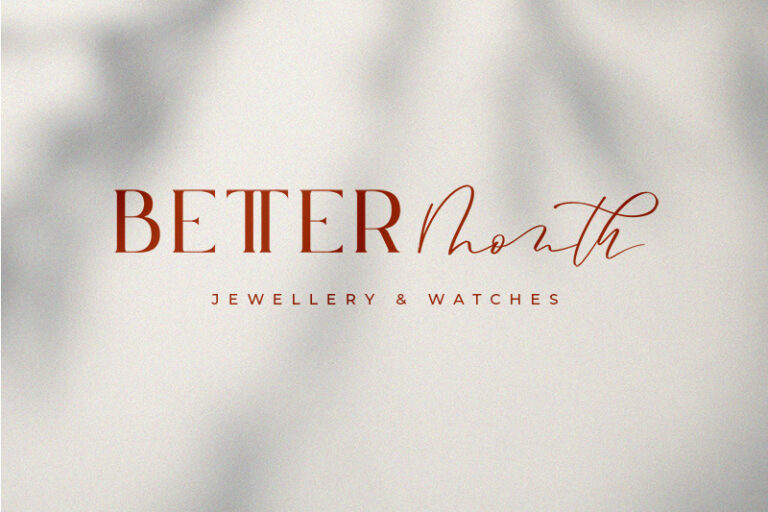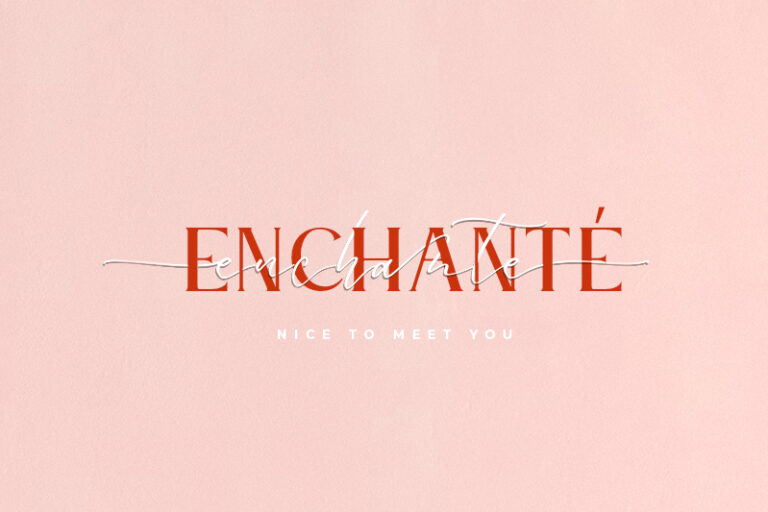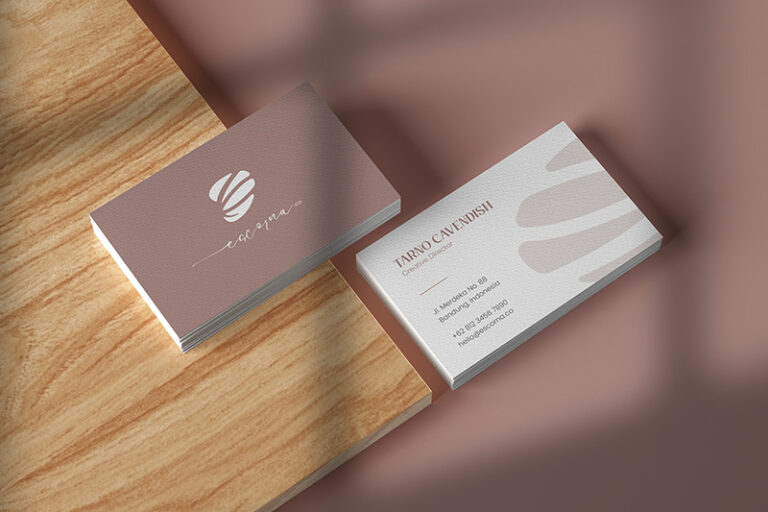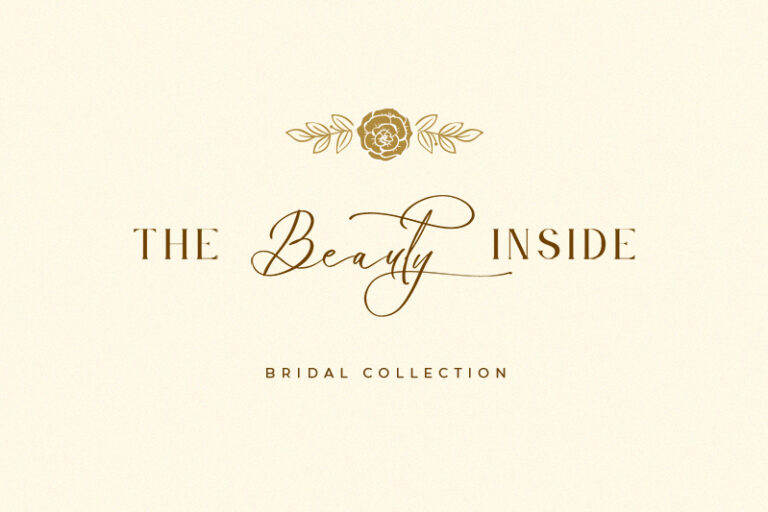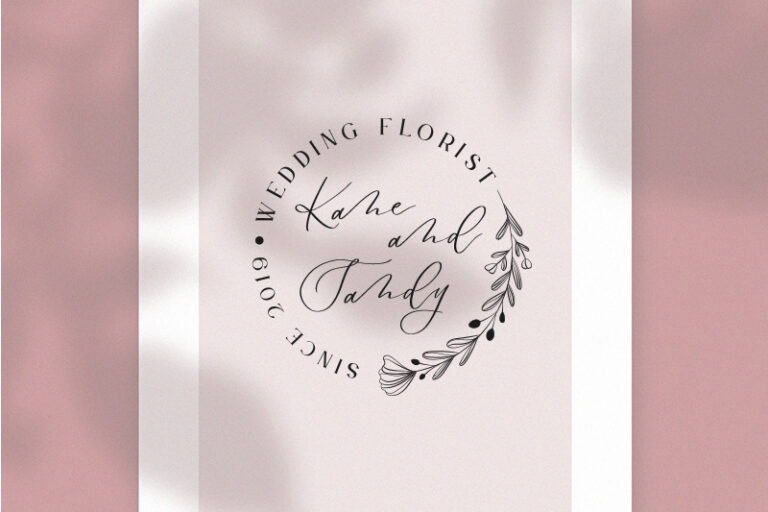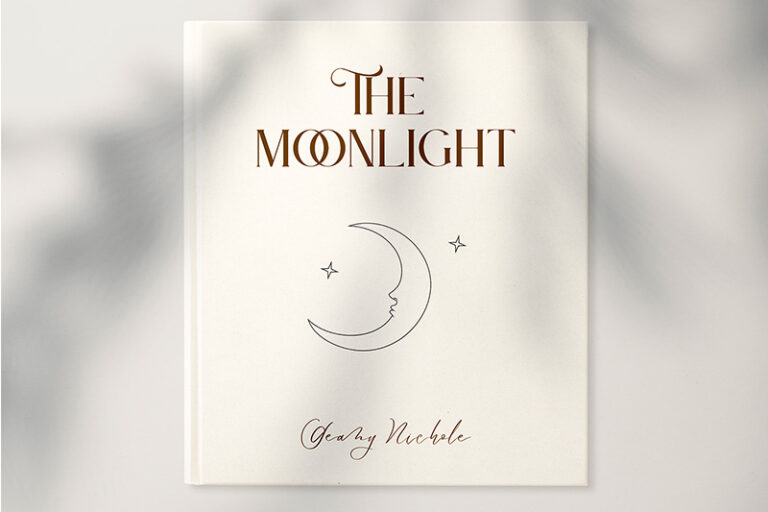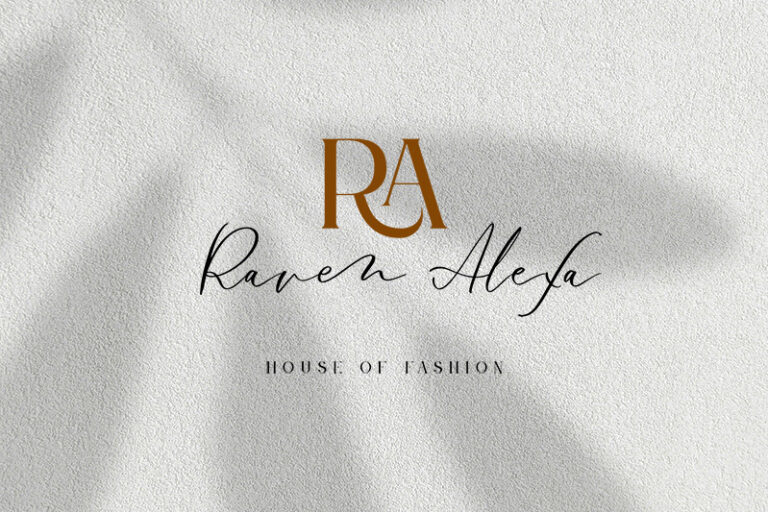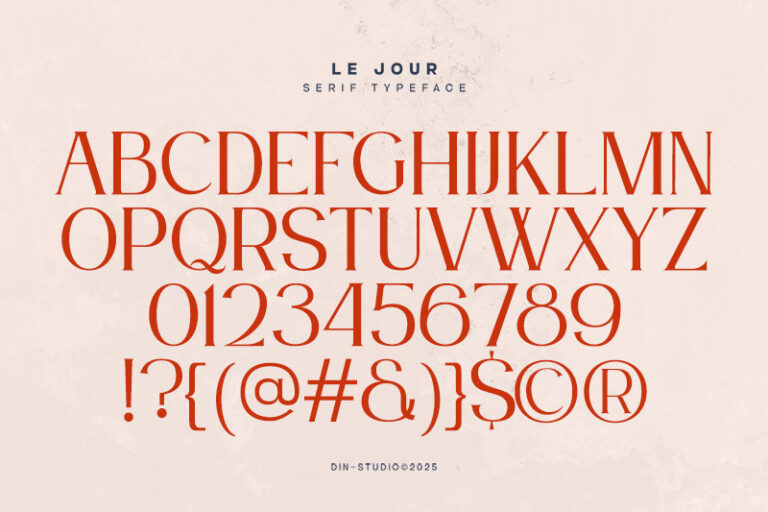
Le Jour – Font Script Serif Family
Le Jour Script
Le Jour is a stunning combination of calligraphy and modern serifs. It’s naturally handwritten. The combination of fonts will add beauty and luxury to your designs. This font is appropriate for any design, including wedding invitations, social media campaigns, advertisements, branding, quotes, and merchandise. This font, which combines elegant and casual styles, includes a complete set of lowercase and uppercase letters, numerals, punctuation, and alternates.
- Accents (Multilingual characters)
- 58 Alternates
- 52 Stylish sets
- PUA encoded
- Numerals and Punctuations (OpenType Standard)